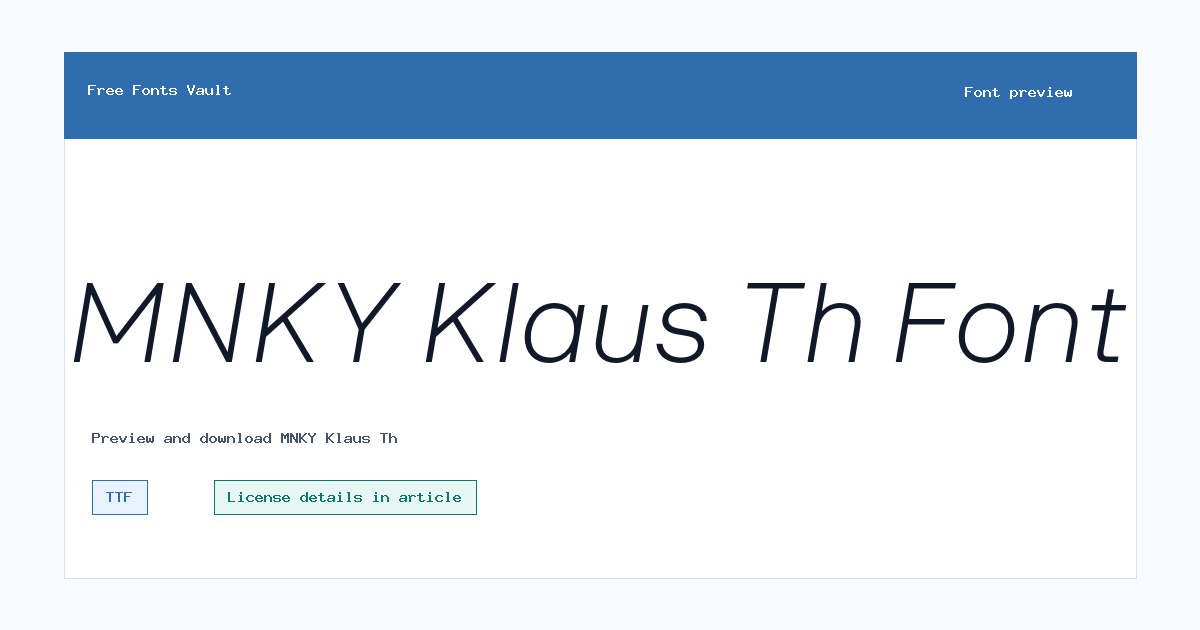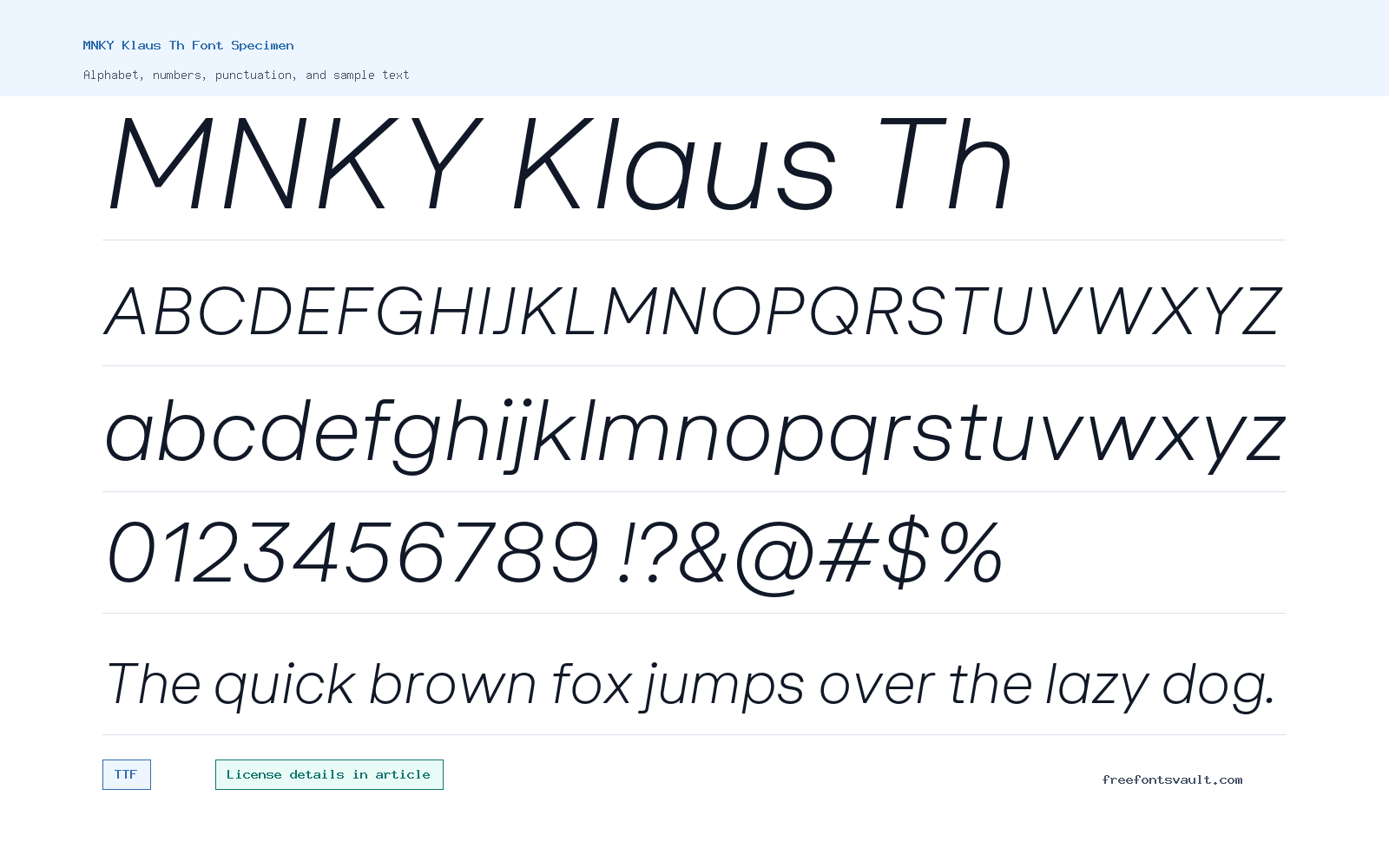
MNKY Klaus Th
- Designer Mitch Paone
- Foundry Monkey Type
MNKY Klaus Th is a downloadable TTF font credited to Mitch Paone and Monkey Type. The file is marked as an italic regular style, making it a good font to test when you need slanted text with a more deliberate, display-minded feel.
MNKY Klaus Th is best approached as a typeface to try in the preview first, especially because the available file is a single TrueType font rather than a broad family with many weights. Since the style is marked italic and the weight is regular, it should be tested in the kind of text where angle, spacing, and character rhythm matter: short headings, nameplates, labels, quotes, and compact visual phrases. If you are planning a long paragraph, try a full sentence in the preview and check whether the slant stays comfortable at smaller sizes.
Because only one TTF variant is listed, MNKY Klaus Th is easier to use when you already have a supporting text font for body copy. Pair it with a plain sans serif or a quiet serif so the italic shape can stand out without fighting the rest of the design. Try it in uppercase and lowercase, check punctuation, and preview numbers if your layout uses dates, prices, issue numbers, or product codes. For web or app use, also test loading, fallback behavior, and how the font renders on both desktop and mobile screens before committing it to a live design.
- Regular weight with an italic style marker, useful for testing slanted display text.
- Short headings, pull quotes, labels, and title treatments where an italic voice is useful.
Only one variant is listed: a regular-weight italic TTF. If you need bold, upright, or multiple weights, plan to pair it with another font family.